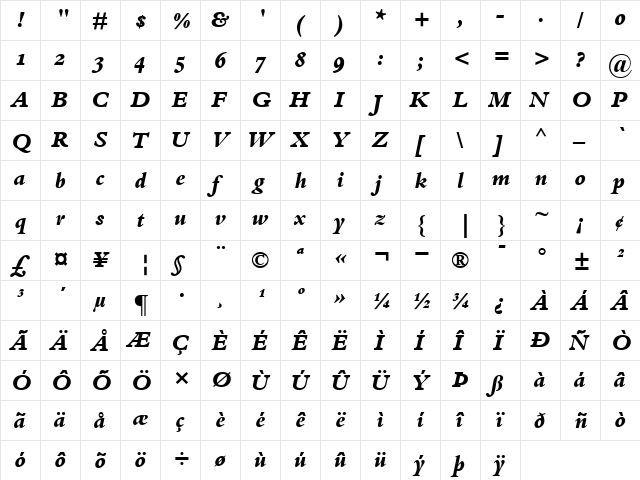
BemboOldstyleFigures-ExtraBold Extra BoldItalic Font Preview
Design Context for BemboOldstyleFigures-ExtraBold Typeface
BemboOldstyleFigures-ExtraBold carries the refined structure of traditional serif typography, with bracketed terminals and considered proportions that communicate credibility and craft. Its italic angle brings a sense of urgency and motion to the letterforms. Its bold stroke weight gives it real presence on the page.